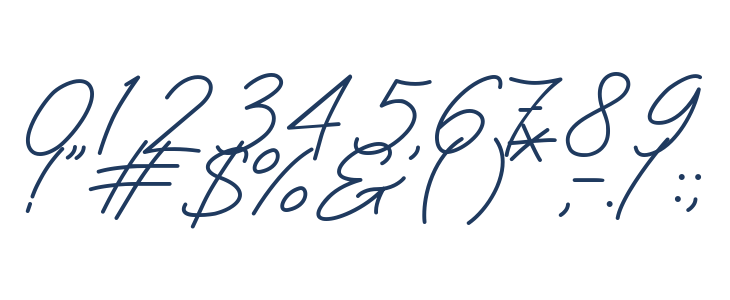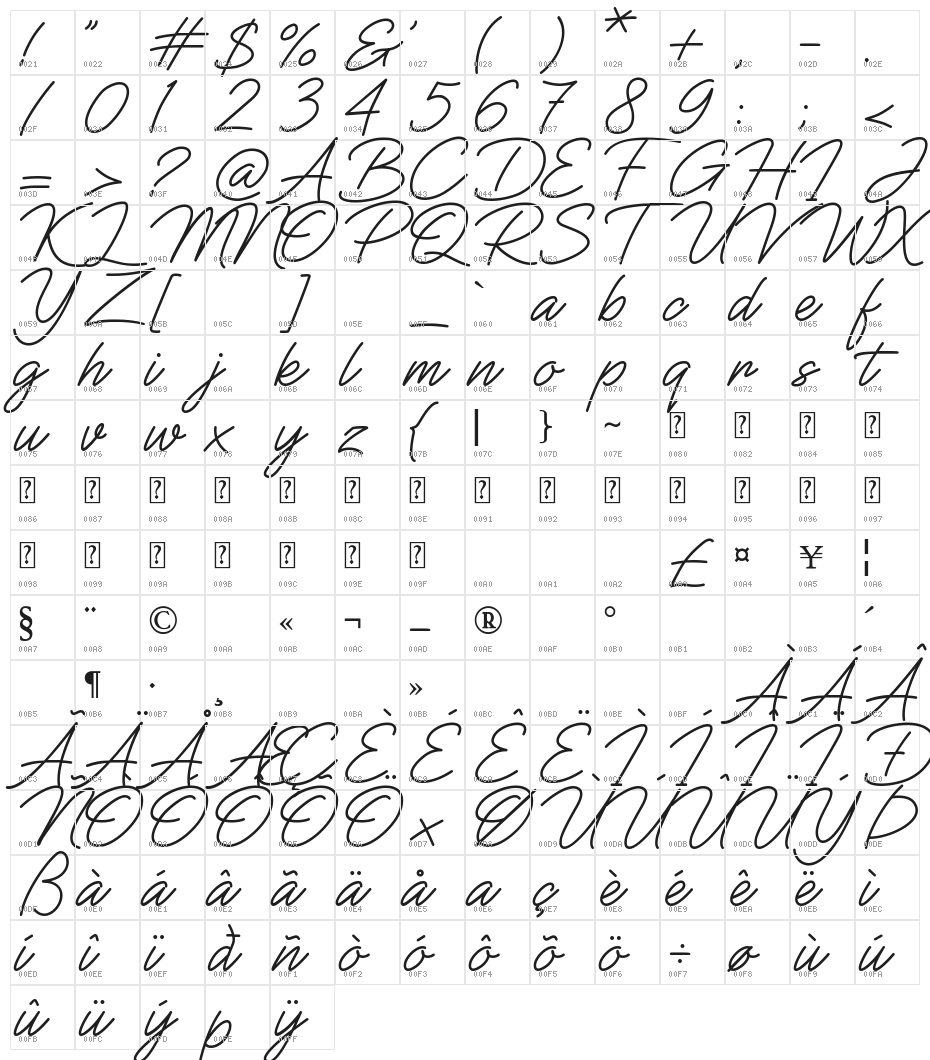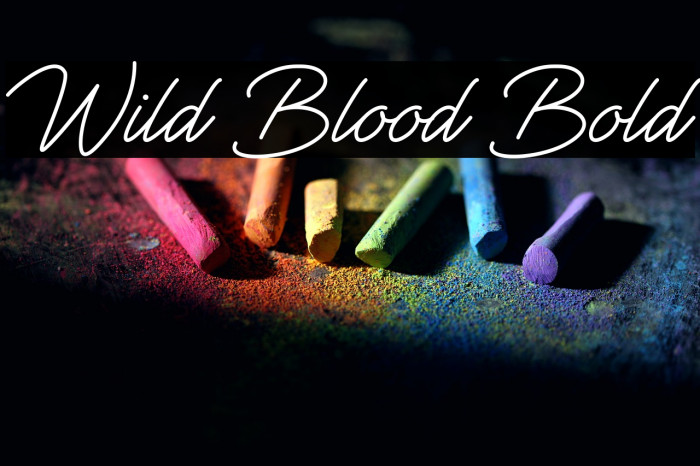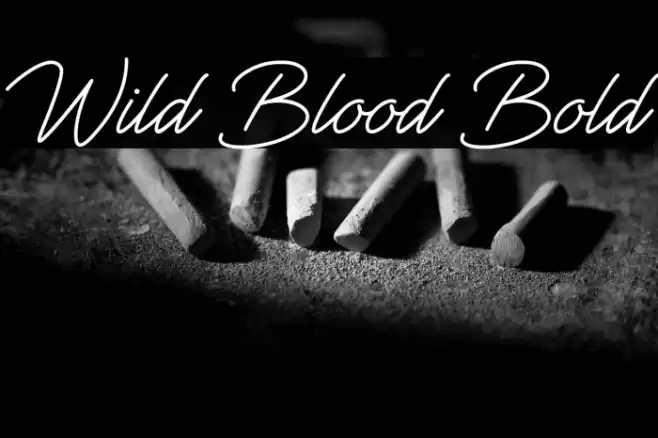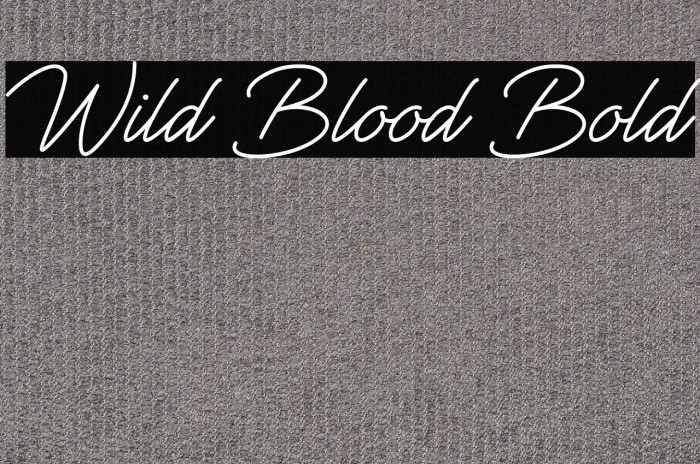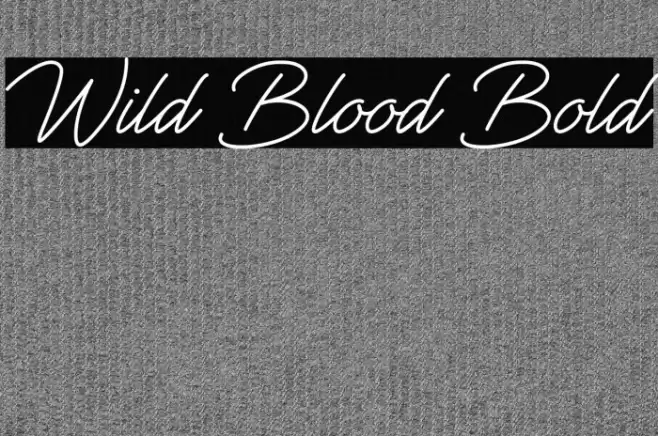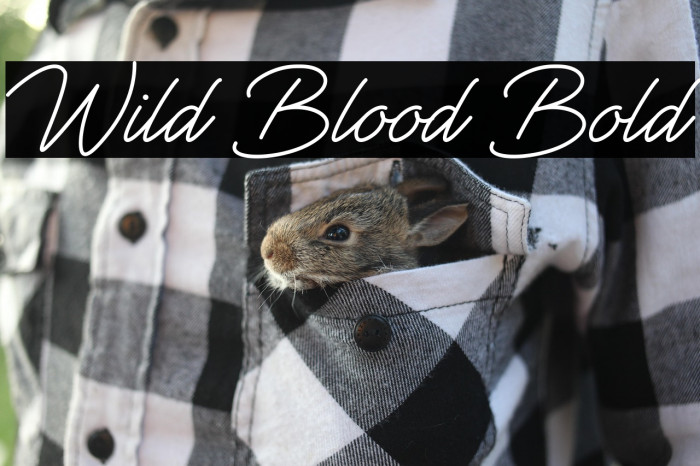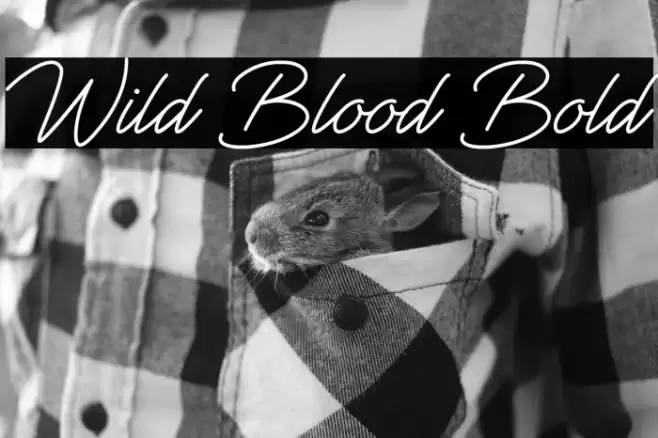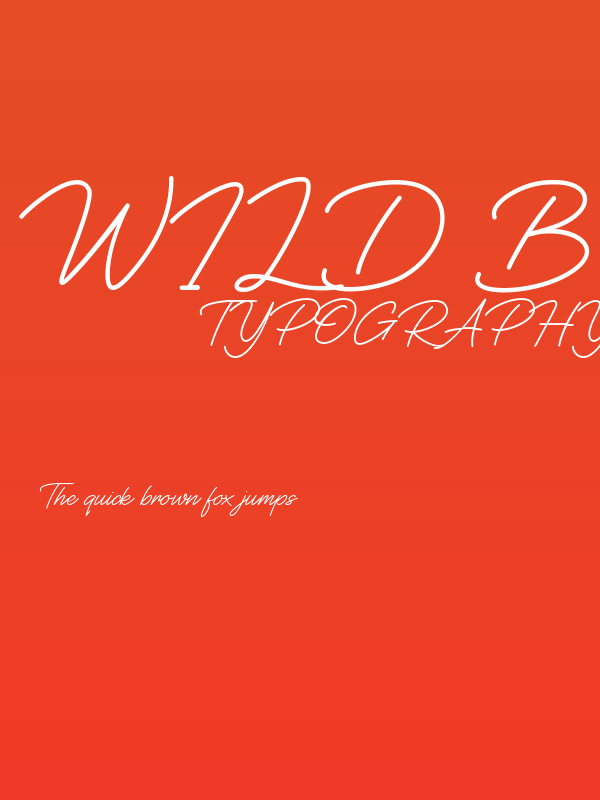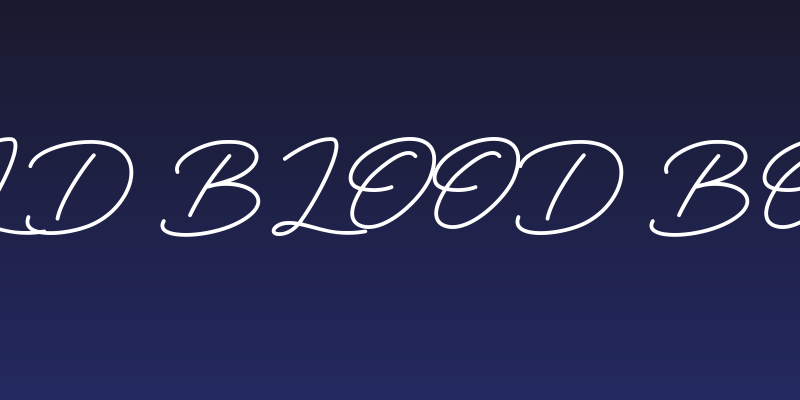
Wild Blood Bold Font
Wild Blood Bold Description
This font features a dynamic and fluid script style, characterized by its elegant and flowing letterforms. The uppercase letters are slightly more restrained, maintaining a sense of sophistication, while the lowercase letters exhibit a lively and cursive nature. The strokes are smooth and continuous, creating a sense of motion and grace. The numerals and special characters complement the overall aesthetic, maintaining the same fluidity and elegance. This font is well-suited for projects that require a personal touch or a sense of elegance and sophistication.